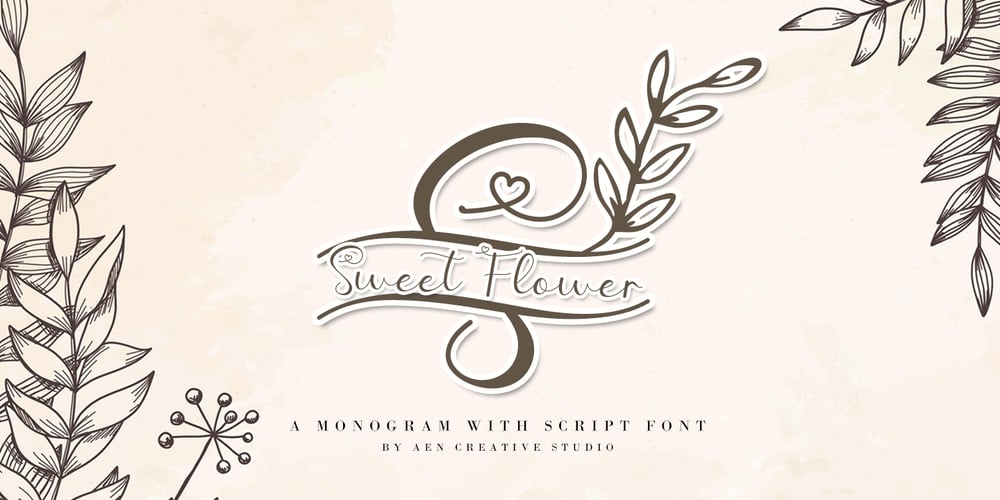
Sweet Flower Monogram Font Family was designed by Agung Eko Nugroho and published by AEN Creative Studio. Sweet Flower Monogram contains 3 styles and family package options. Sweet Flower Monogram is an incredibly beautiful and romantic monogram with handwritten script font, featuring little hearts as ornaments. It looks stunning on wedding invitations, logos, labels, business branding, thank you cards, quotes, greeting cards, business cards and every other design which needs a handwritten touch.